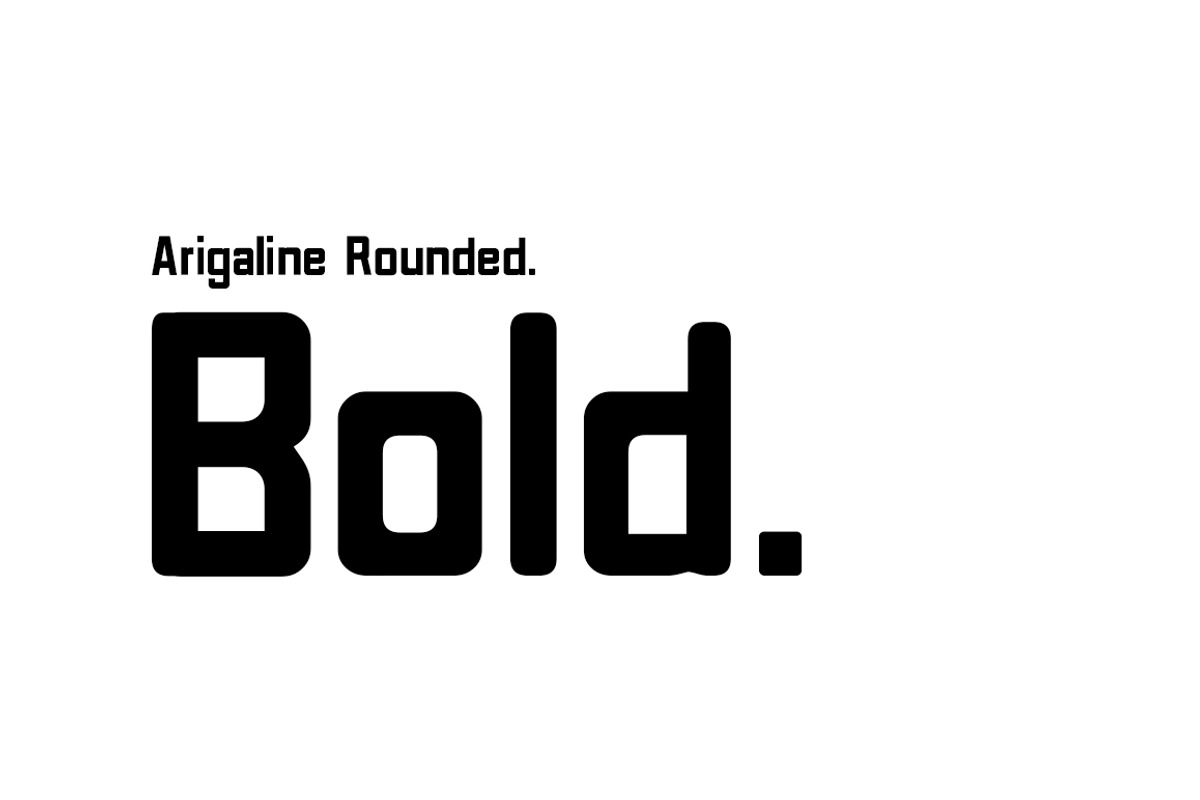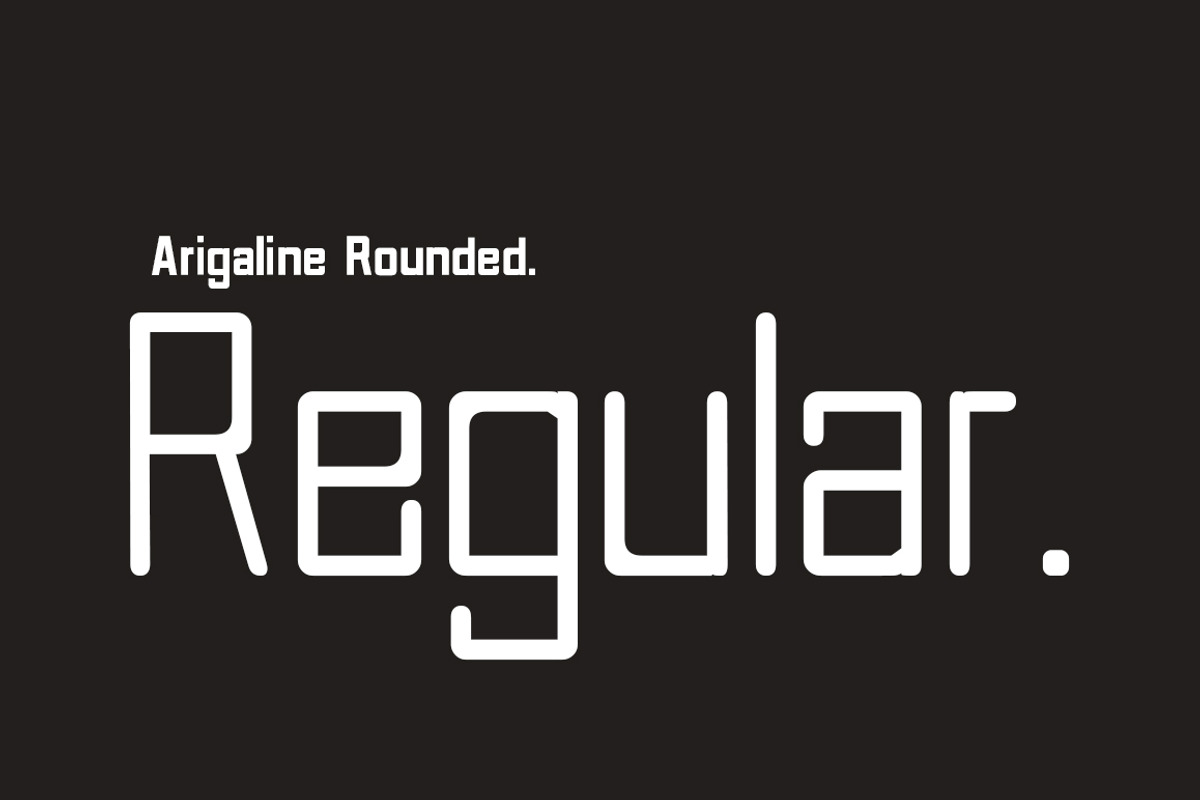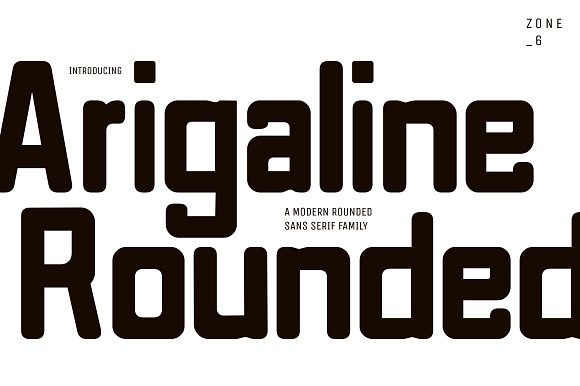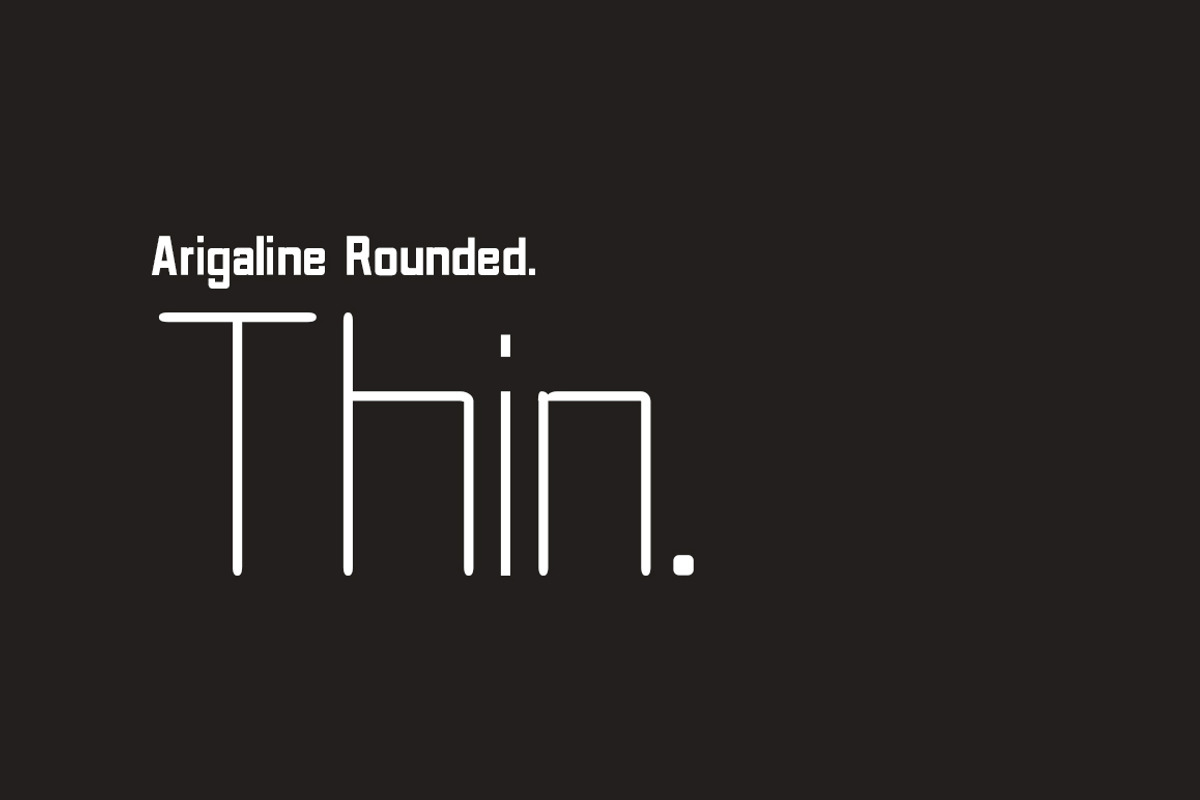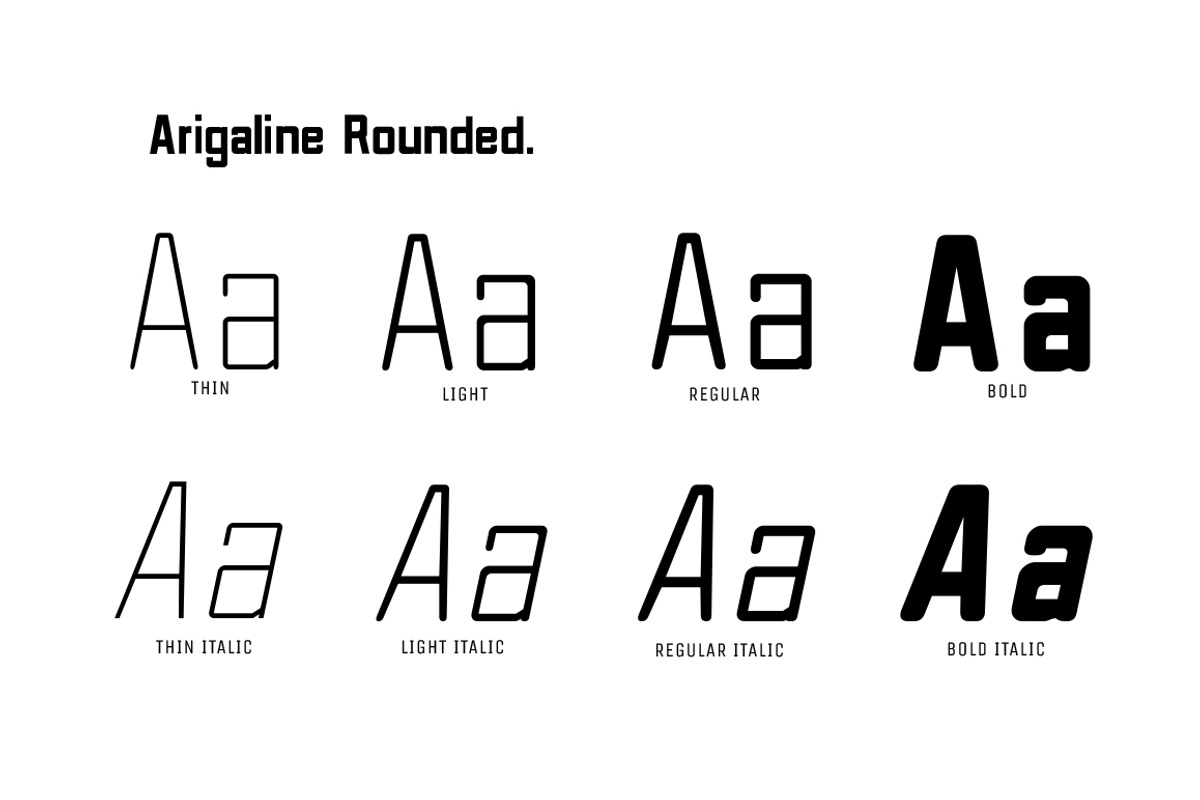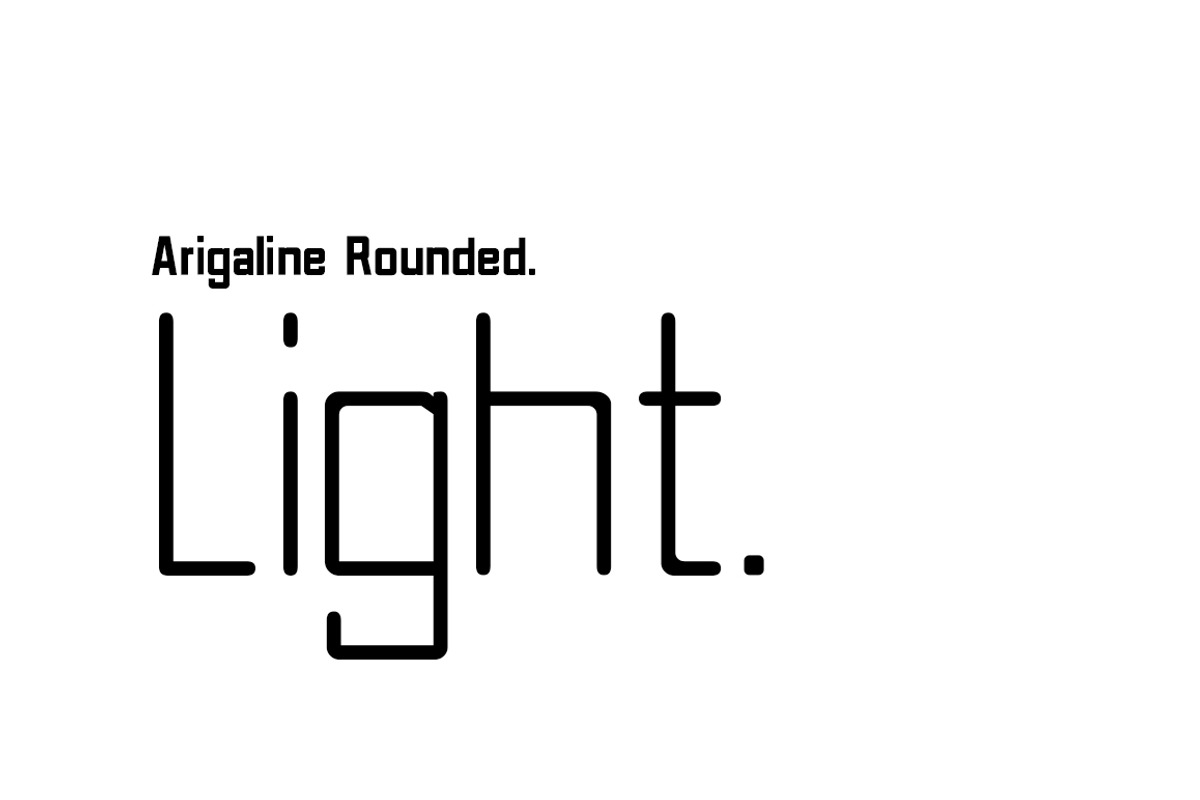
Arigaline Rounded | Font Family
Arigaline Rounded is a softer version of the original Arigaline Regular, yet it retains its sleek precision and contemporary finish. It stands alone as an impressive font, enabling you to cultivate stand out, professional designs.
Arigaline Rounded was designed specifically for apps, websites, branding, logos, packaging, copy, but is versatile and works with most other projects!
Upper and Lower Case Alphabets
Optimized Kerning for Aesthetic and Highly Readable Texts
If you’re looking for something contemporary, minimalist and professional designs, this is the font for you!